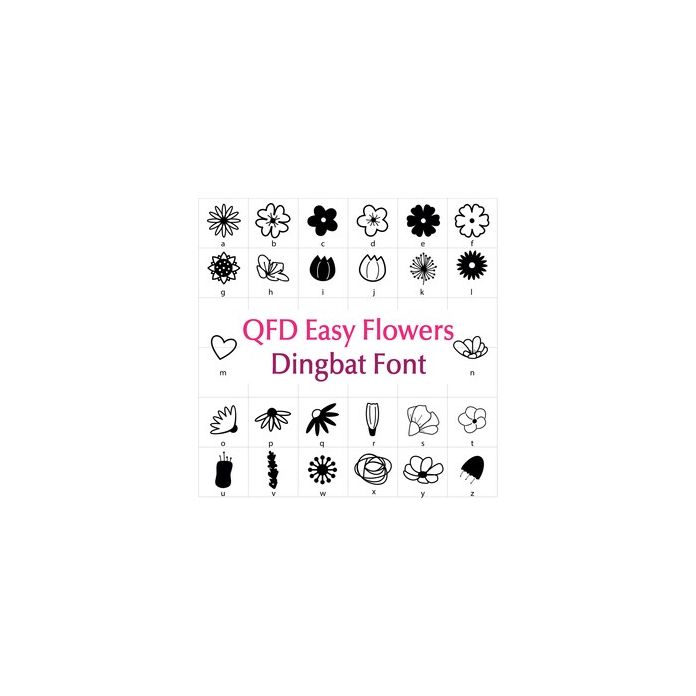
Here is an awesome collection of super useful flower designs for cards, scrapbook pages and anything else you might think of! Use one design or several on one project. These are perfect when mixed with the QFD Easy Leaves and Stems Dingbat Font. If you have any questions, please feel free to contact me on my website.